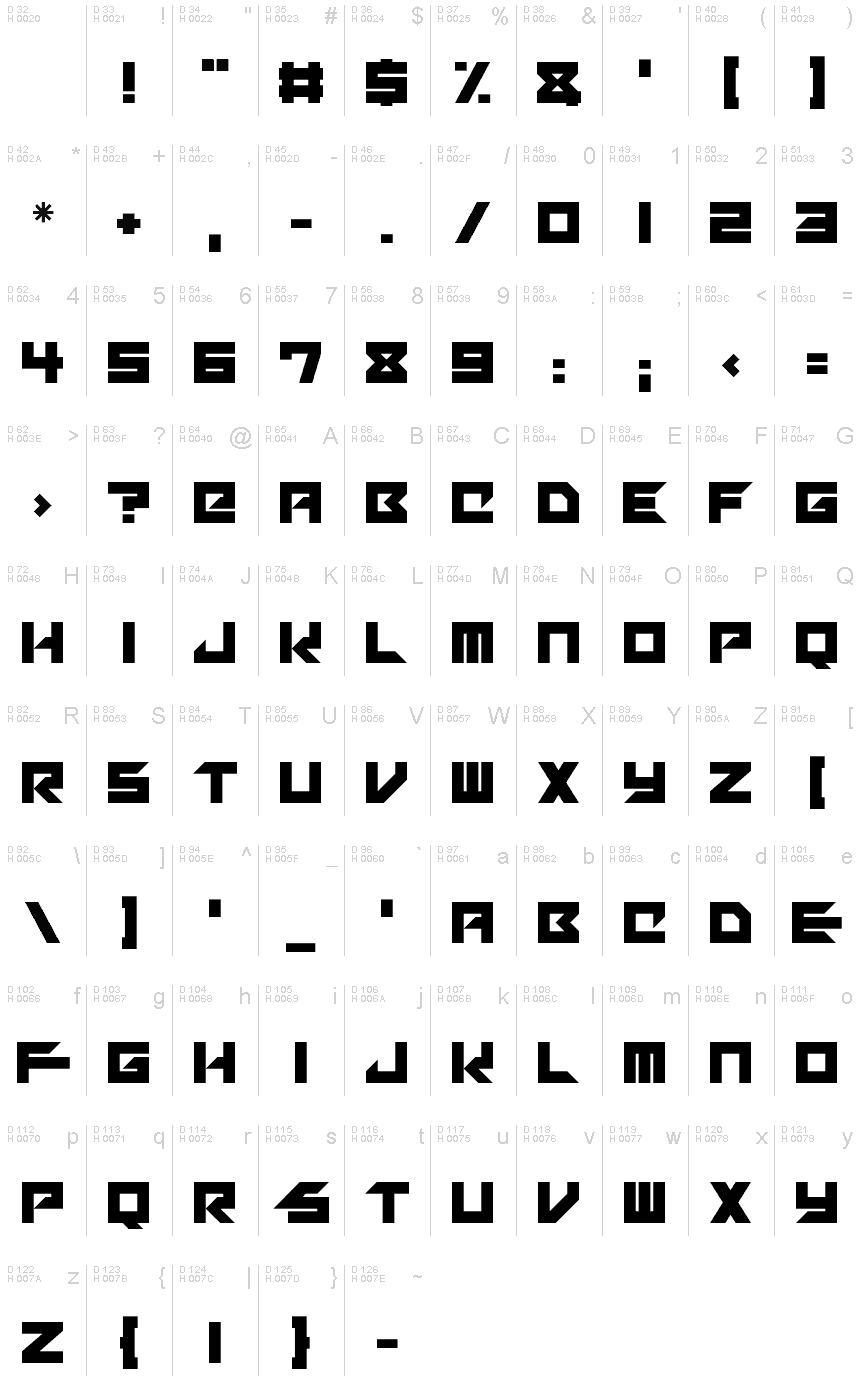
Mechacubes
Mechacubes is a bold, techno-inspired display font that exudes a captivating industrial aesthetic. Designed by Hawtpixel, this expanded typeface features sharp, angular letterforms that evoke a sense of futuristic machinery and technological innovation. The font's distinctive geometric shapes and robust, condensed structure lend it a striking visual presence, making it an ideal choice for a wide range of applications, from eye-catching poster designs and modern branding to immersive video game interfaces and cutting-edge digital art.
The font's strong, geometric forms and expansive width create a sense of power and dynamism, making it well-suited for titles, headlines, and other display-oriented contexts. Its bold, techno-inspired style also makes it a versatile choice for a variety of design projects, from sleek, minimalist compositions to more experimental, avant-garde layouts.